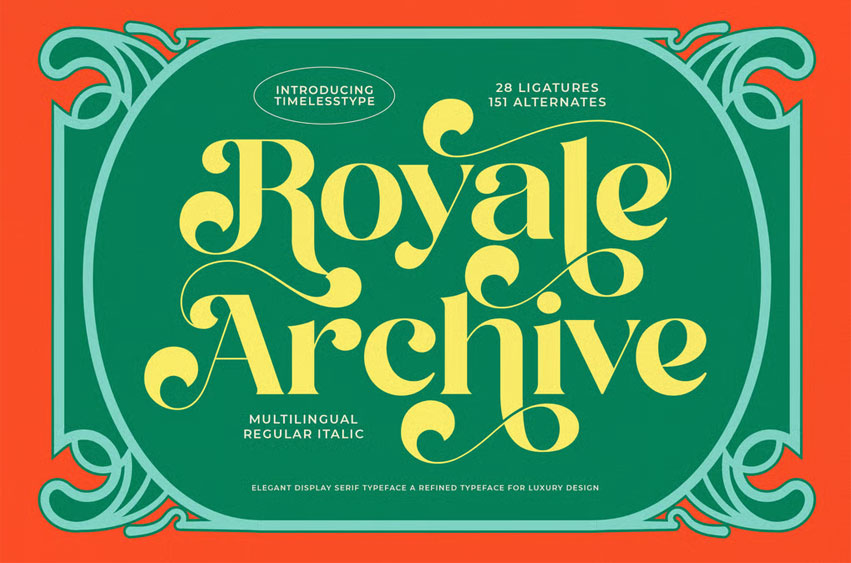
Royale Archive Font is an elegant display serif font that blends classic sophistication with modern artistry. Featuring 28 ligatures and 151 alternates, this typeface offers endless creative possibilities for posters, invitations, packaging, branding, and editorial layouts.
With its ornamental style and luxurious details, Royale Archive choice for both digital and print designs, adding refinement to every composition.